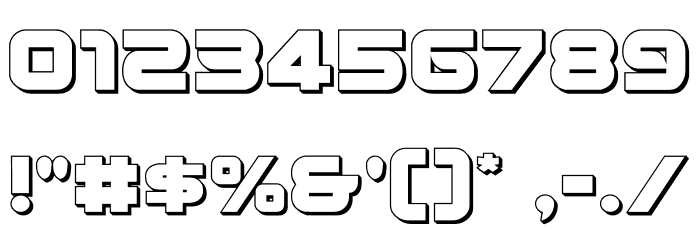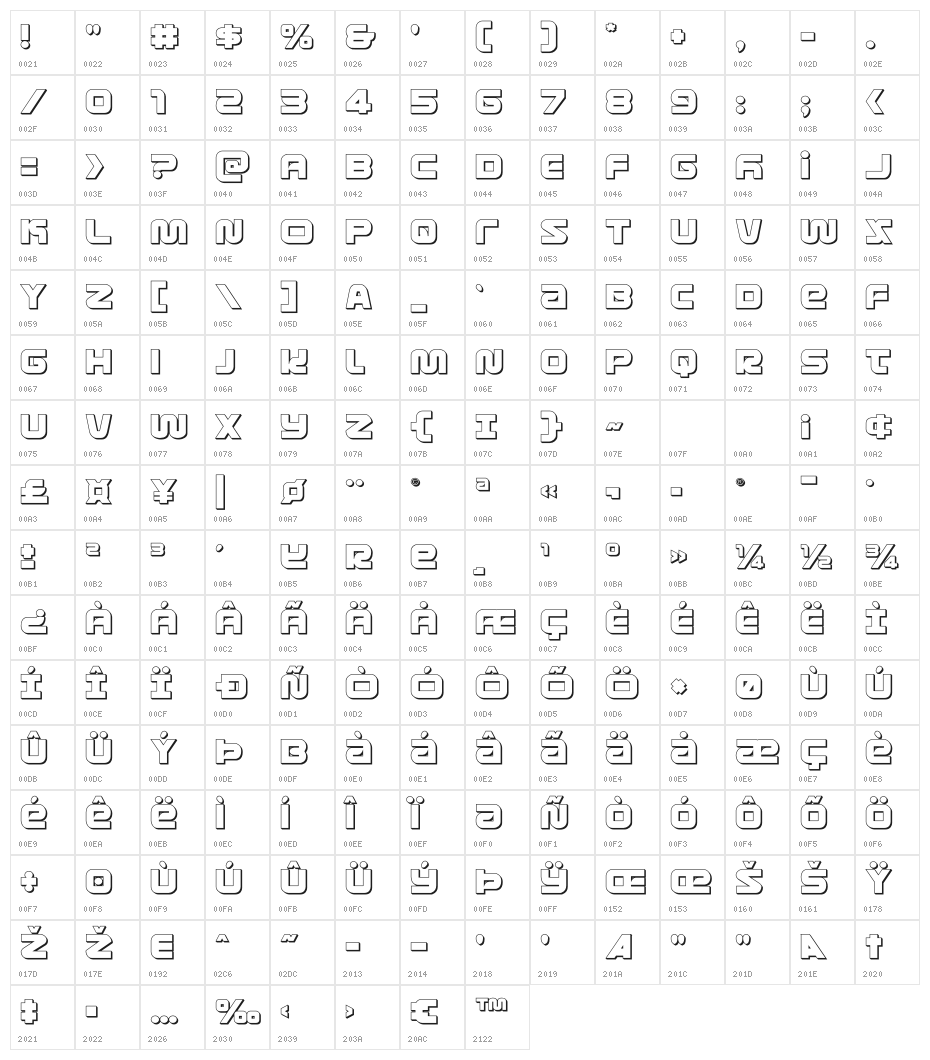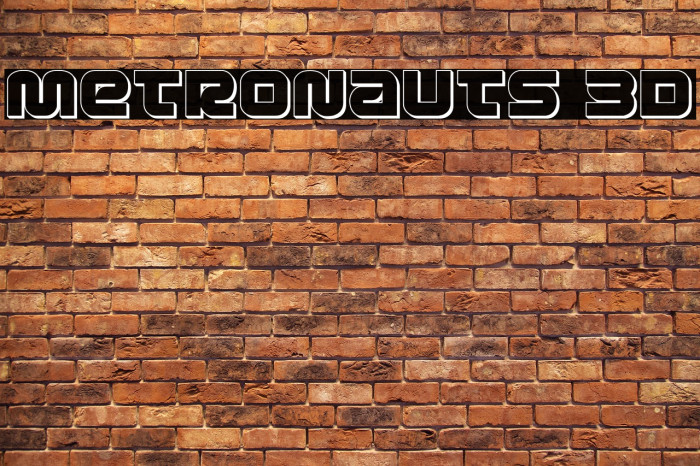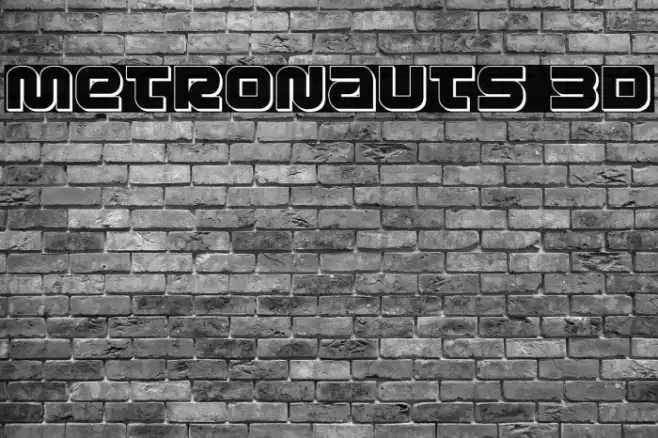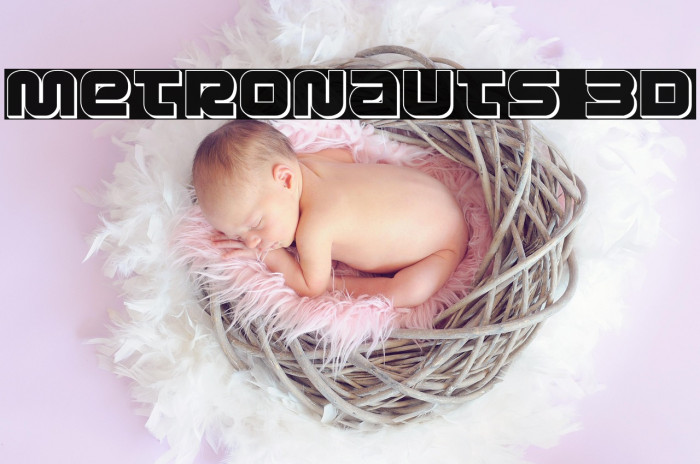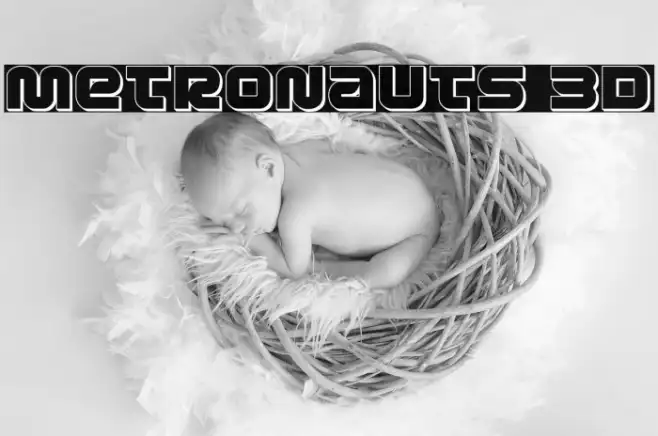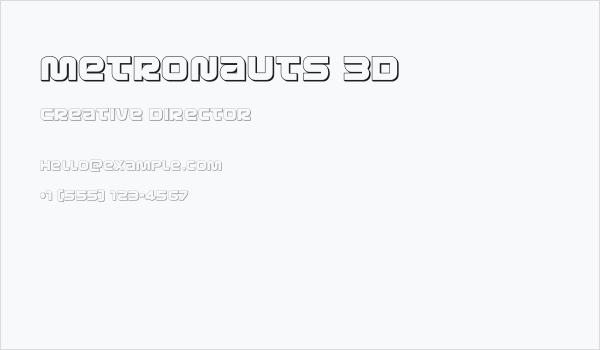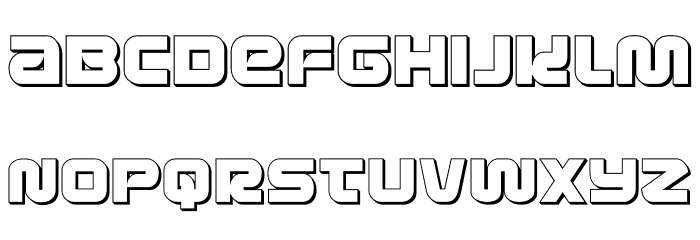
Metronauts 3D Font
Metronauts 3D Description
This font features a bold, futuristic design with a three-dimensional effect that gives each character a distinct, shadowed appearance. The uppercase and lowercase letters share a consistent geometric style, with rounded edges and a blocky structure that enhances readability while maintaining a unique aesthetic. The numerals and special characters are designed to match the overall theme, providing a cohesive look across all elements. The font's outline style adds depth and dimension, making it ideal for projects that require a modern and eye-catching typeface.